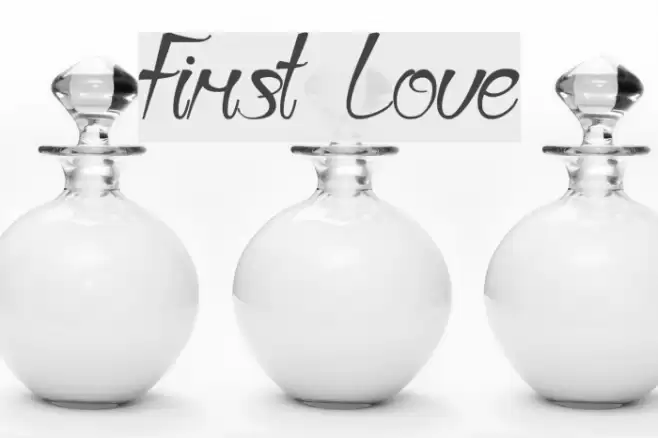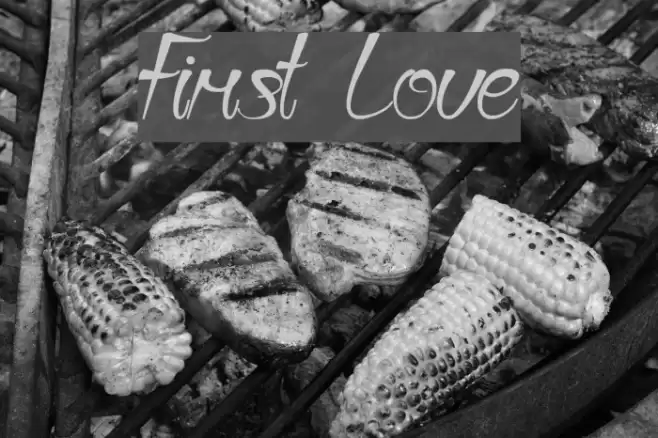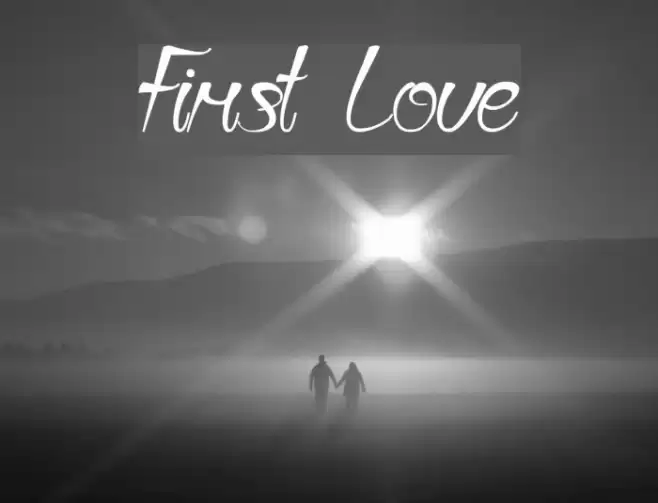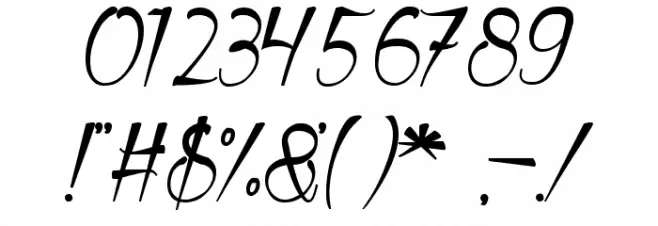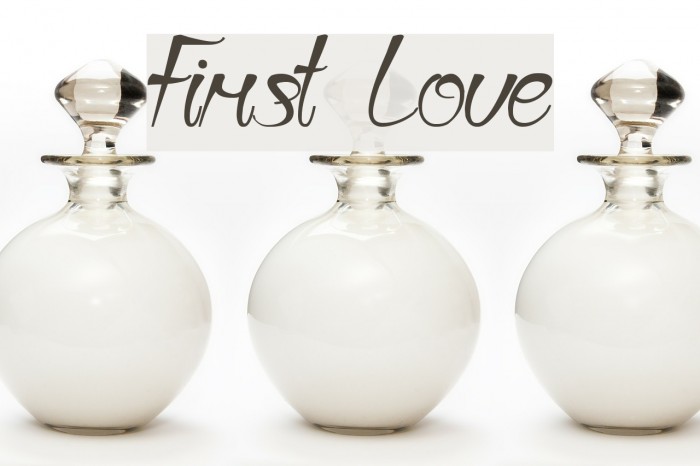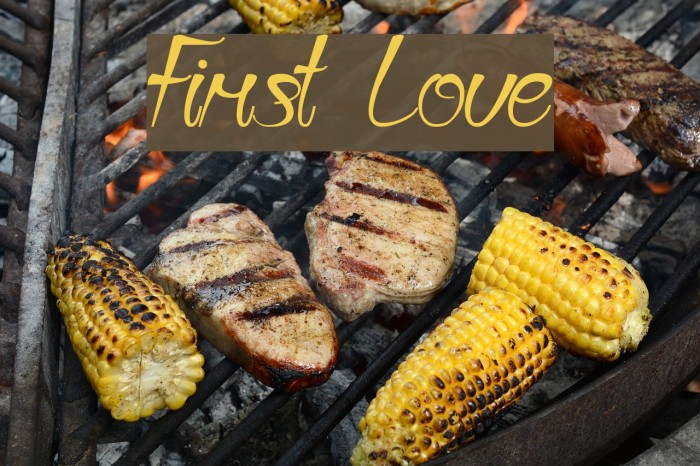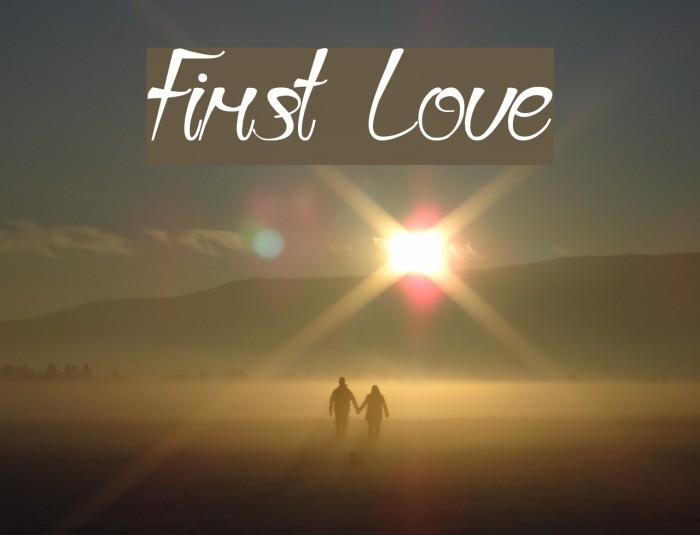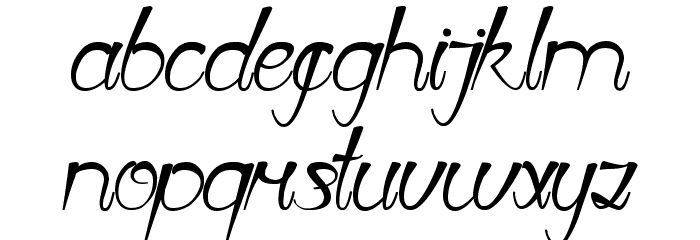
First Love Font
First Love Description
This font features a flowing, cursive style that exudes elegance and sophistication. The characters are interconnected with smooth, sweeping lines, giving it a handwritten appearance. The uppercase letters are tall and graceful, while the lowercase letters maintain a consistent flow, enhancing readability. The numerals and special characters are designed to complement the overall aesthetic, with a touch of flair that adds to the font's charm. The strokes vary in thickness, providing a dynamic contrast that enhances its visual appeal.
A cursive, elegant font with flowing, interconnected characters from Uncategorized fonts.
- Proposed Projects: Ideal for wedding invitations, greeting cards, personal branding, and elegant logo designs.
- Overall Style: Elegant
- Use Case: Logos, Invitations, Personal Branding